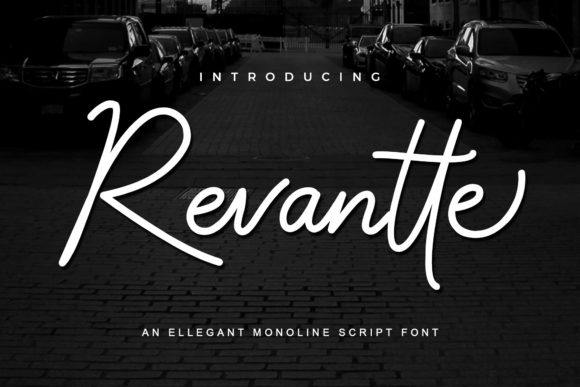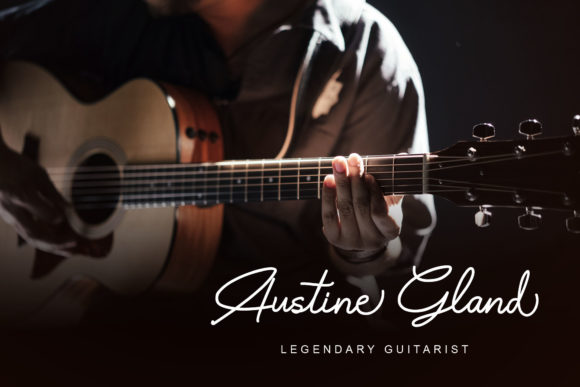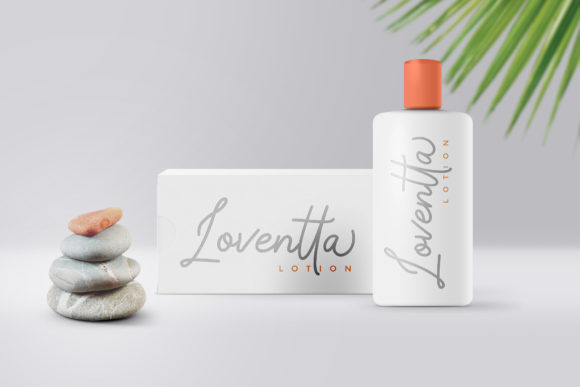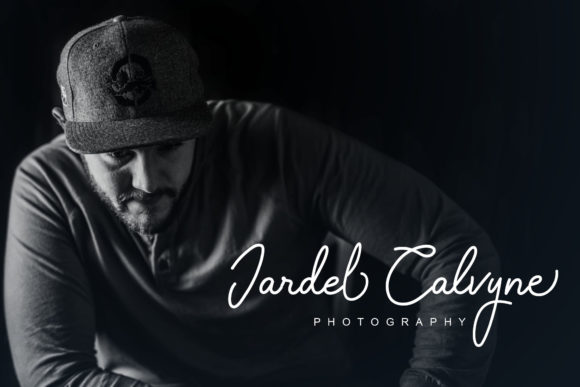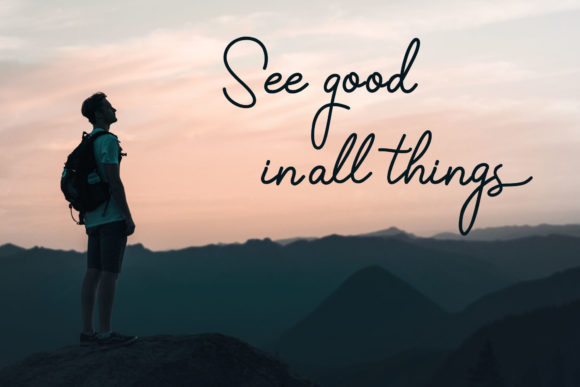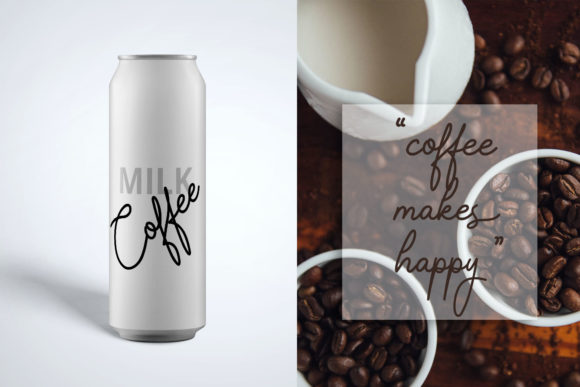
HomeScript FontsRevantte Font Script Fonts Revantte Font FacebookXPinterestWhatsApp Revantte Font Poster 2 Revantte Font Poster 3 Revantte Font Poster 4 Revantte Font Poster 5 Revantte Font Poster 6 About Revantte Font Revantte features elegance in a minimalist fashion. It’s the perfect font for adding a simple feel to any design! DOWNLOAD ON CREATIVE FABRICAThis font is sold and delivered by Creative Fabrica. Font Canyon may earn a commission if you buy through this link. People also explored Vorticella Font Luxmauve Font Special Handmade Font Hopkins Font Boho Love Font Sign Language The Hartford Font Villagee Watermelonnn Font 343 0 TagsRevantte Font Previous articleHeima FontNext articleSimplicity Angela Font LEAVE A REPLY Cancel reply Comment: Please enter your comment! Name:* Please enter your name here Email:* You have entered an incorrect email address! Please enter your email address here Website: Save my name, email, and website in this browser for the next time I comment. Personal Use Free Lovely Girl Personal Use Free Read more about this font Puisi Adinda Personal Use Free Read more about this font Oito Personal Use Free Read more about this font Anggraini Personal Use Free Read more about this font BLOG Exploring Font Trends Shaping Communication in the Digital Era Fonts, like all design elements, are subject to trends. They play a crucial role in communicating a brand's personality,... Transform Your Website: Elevate Your Typography with 7 Best Web Font Generators 5 Fonts That Will Dominate Design Trends in 2026 Top 10 Handwritten Fonts That Elevate Your Designs